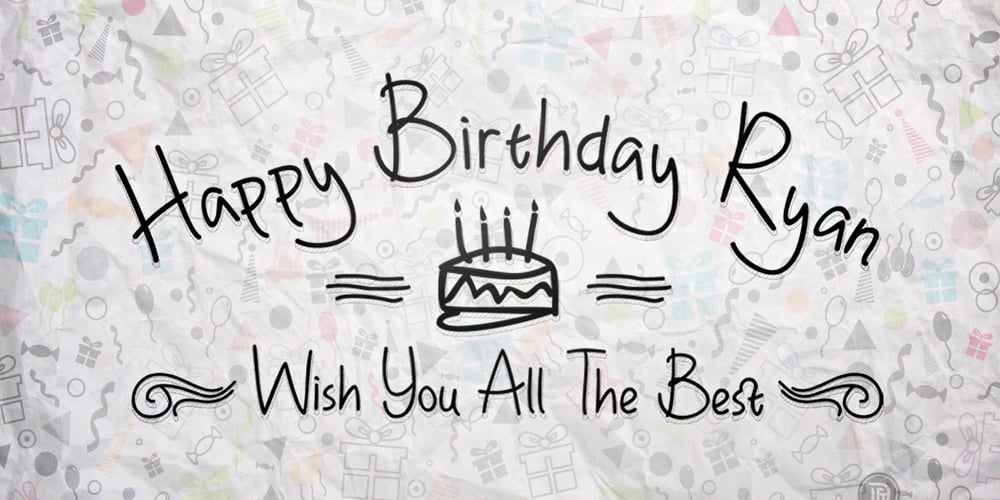
Happy Birthday Ryan Font Family was designed by Dexsar Harry Anugrah and published by Majestype. Happy Birthday Ryan contains 1 styles and family package options. Happy Birthday Ryan is a fun handwriting font that comes with 451 glyphs. This font has OpenType features for custom design work. Use of Contextual Alternates and double letters of this font will appear differently.